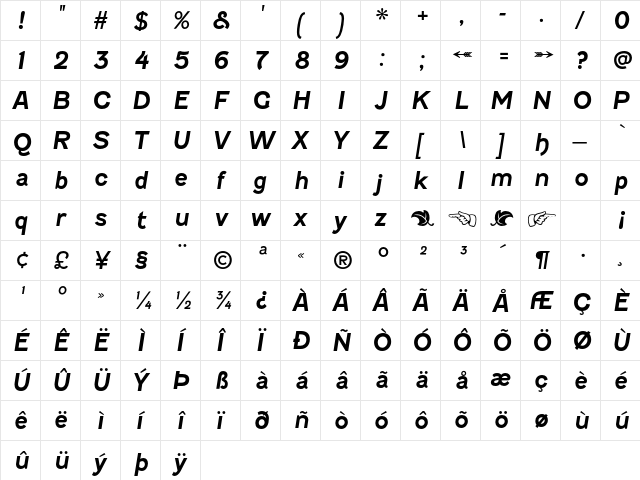
Fenwick Bold Italic
Design Context for Fenwick Typeface
Fenwick offers clean, dependable letterforms without strong stylistic allegiance, making it a practical choice for designers who need flexibility. The slanted form adds forward momentum and visual energy. Its bold stroke weight gives it real presence on the page.
Pro Tip: Use Fenwick for emphasis, pull quotes, and subheadings where its slanted energy can add rhythm to the layout.